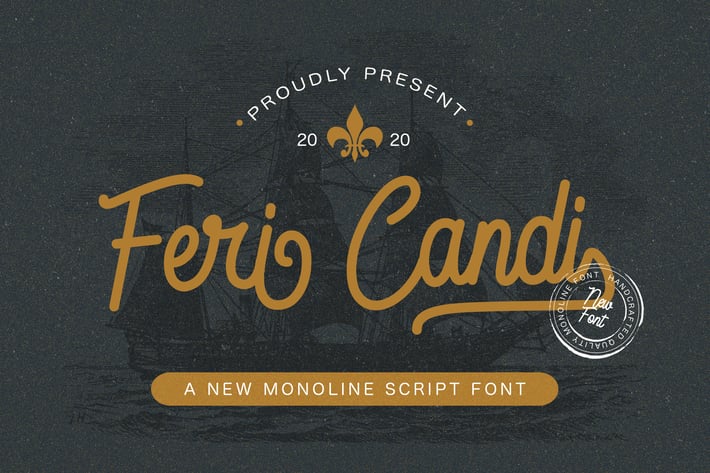
Feri Candi - Monoline Script Font
Introducing Feri Candi - Monoline Script Font
Feri Candi is a unique monoline script font. It features gorgeous swashes and ligatures that make this script incredibly versatile. Whether you’re looking for fonts for social media or calligraphy scripts for DIY projects, Feri Candi will turn any creative idea into a true piece of art!